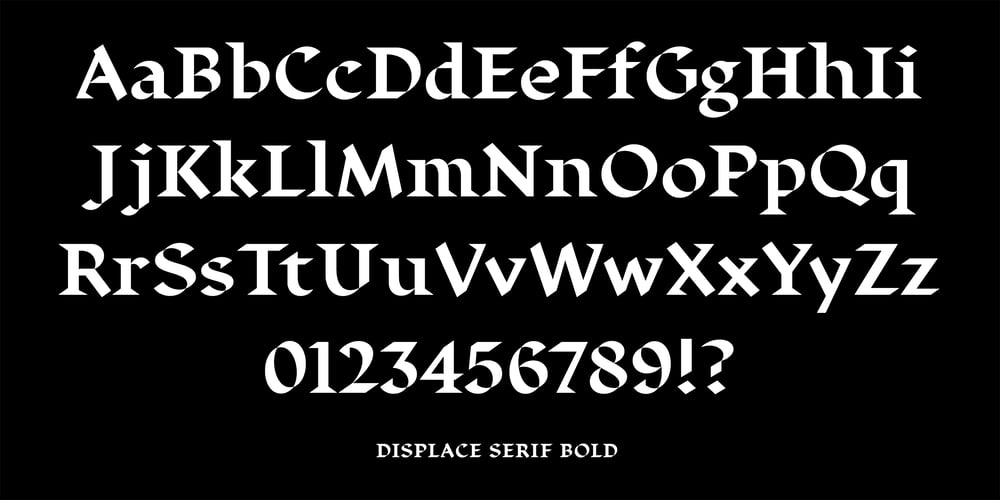
Displace Serif Font Family was designed by Denis Serebryakov and published by Serebryakov. Displace Serif contains 7 styles and family package options. Displace Serif is a continuation of my Displace fonts. Adding serifs allows you to see the font in a new way. There is a more pronounced charm of Italian monumental fonts, but in an expressive way. The appearance of the serifs allowed the font to move to the antiqua class, but this is purely a formal matter. The proportion of serifs changes markedly from weight to weight, allowing the font to retain its decorative character. In the Light drawing the serifs are barely visible and delicate, while in the Black they are in superposition. The font is catchy, noticeable, which makes it suitable for graphics requiring instantaneous spectator emotions. Displace Serif is suitable for editorial design, as despite the modern image it retains the classic concept.